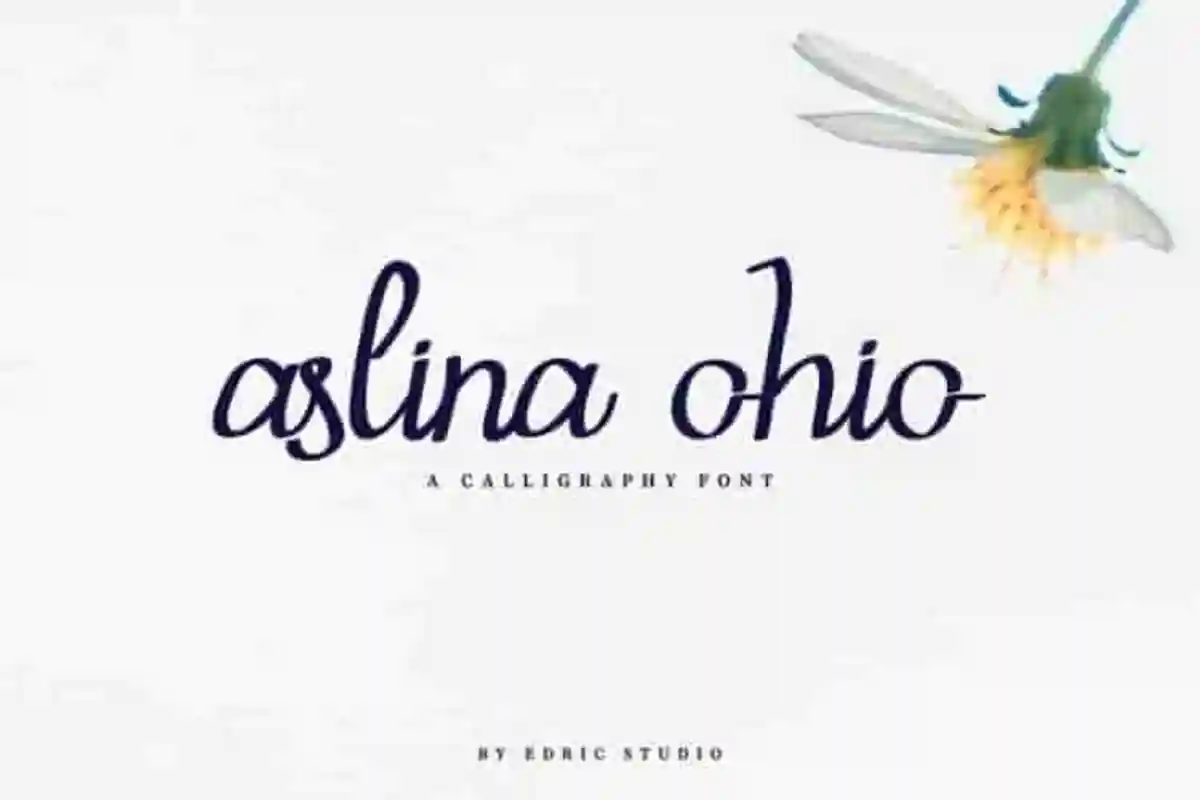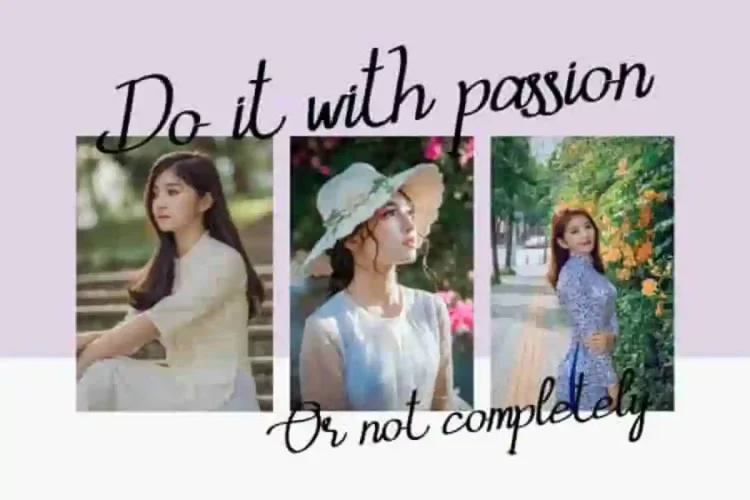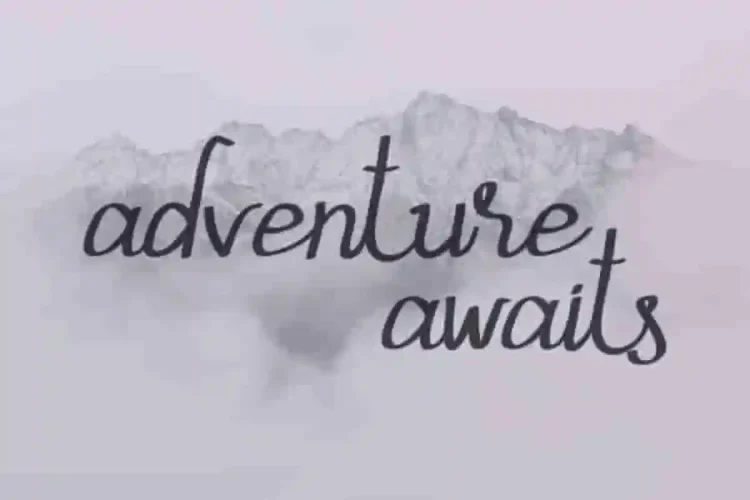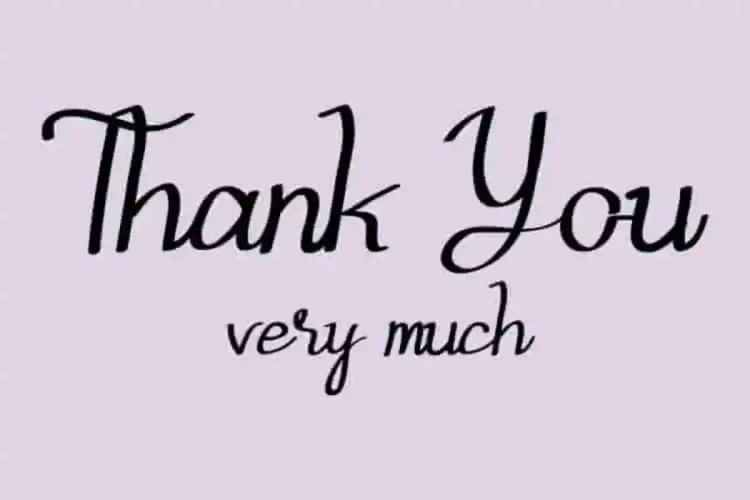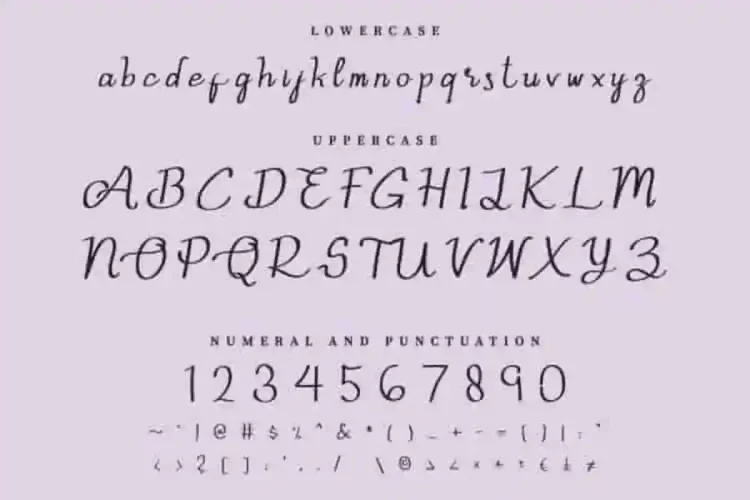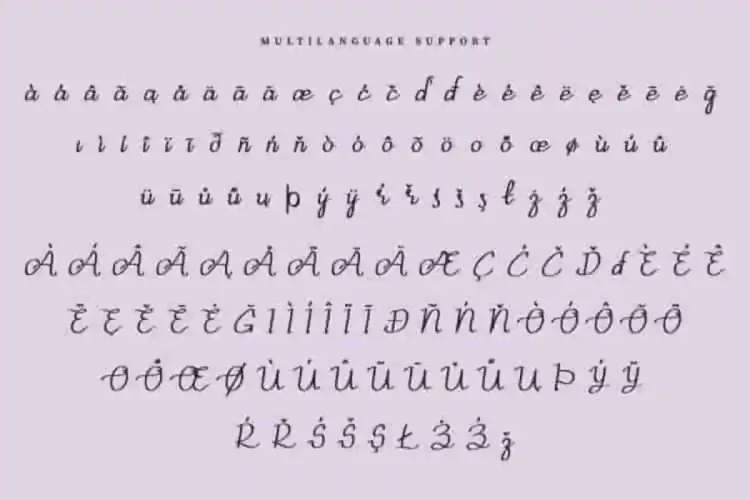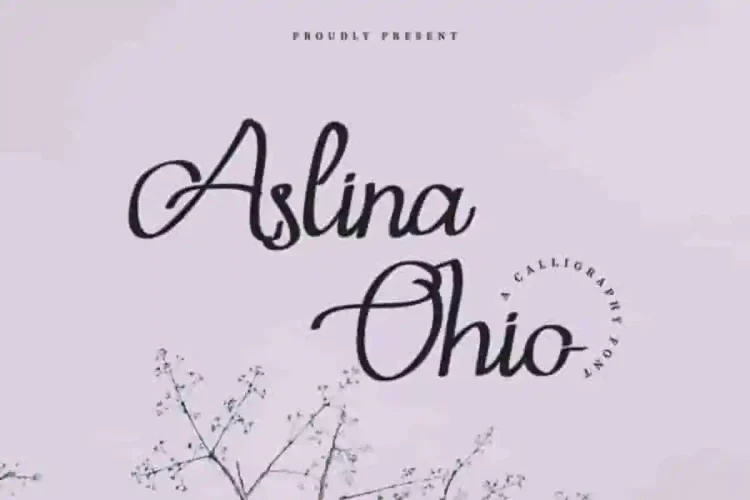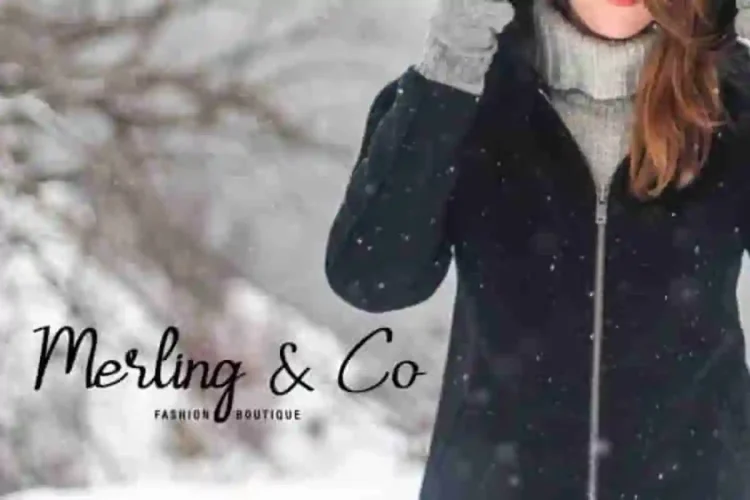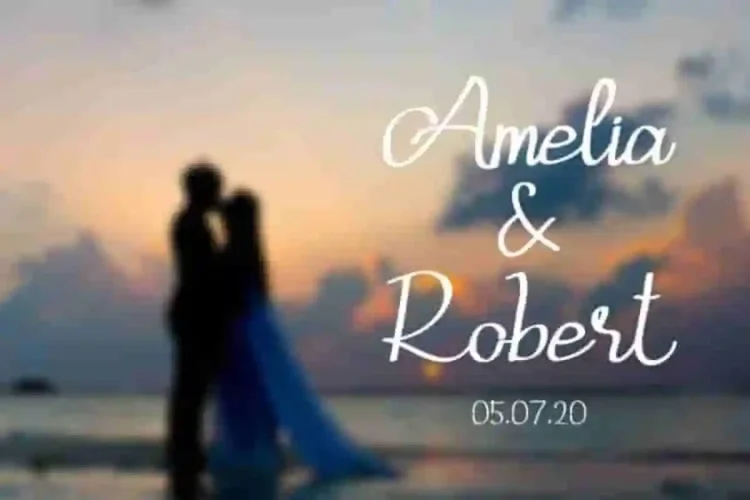
Aslina Ohio Calligraphy Font
It is us again : EDRIC Studio, Please welcome our latest font :  Aslina Calligraphy Ohio Font.
This is a Calligraphy font, handcrafted from our Studio here in Garut and Bandung, Indonesia. The artists/designers of this beautiful tyeface is Aghnia and Sarah Suci.
Aslina Ohio Calligraphy Font is an exclusive calligraphy script typeface with brush style. This font has a stunning characters set, perfectly managed with well spaced and kerning.
Aslina Ohio Font will be great for any projects including : branding, logo, stationery, business card, signage, flyer, brochure etc. Almost all industries will be match for this typeface: wedding, events, real estate, architect, law firm, florist, gardening, makeup artist, travel, hotel, musician etc.